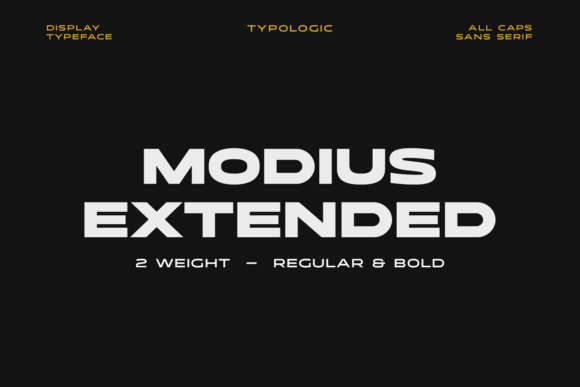
Unleash your creativity with Modius Extended, the extraordinary display font that exudes boldness and modernity. Immerse yourself in a world of sleek, minimalist, and techno-inspired designs, leaving an unforgettable impact on your web apps, logos, and more.
With its captivating presence, Modius Extended transforms your digital creations into extraordinary masterpieces. Experience the allure of smart and cool aesthetics, capturing the attention of your audience with every stroke. Whether you're a seasoned designer or just starting your journey, Modius Extended is your perfect companion.
Embrace the endless possibilities with Modius Extended. Its versatility knows no bounds, effortlessly adapting to any design concept. Unleash your imagination and let Modius Extended elevate your designs to new heights of beauty and sophistication.